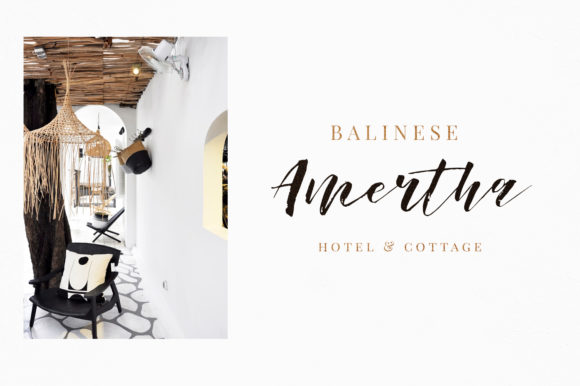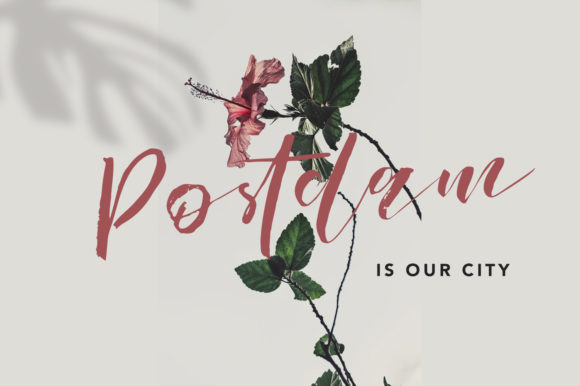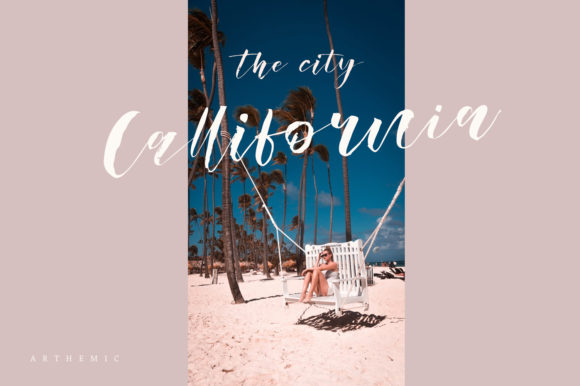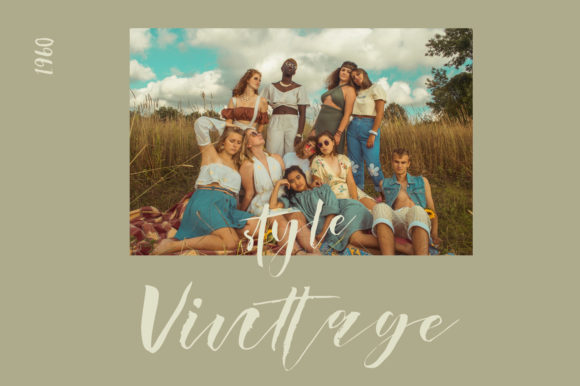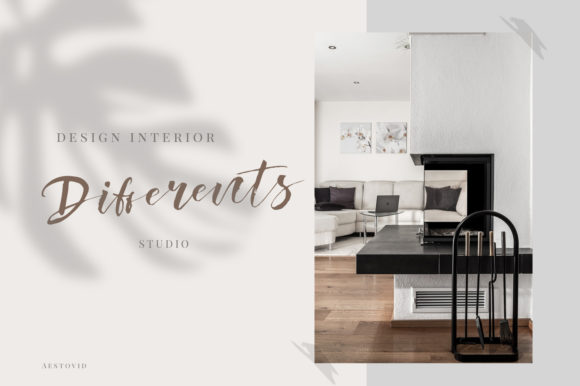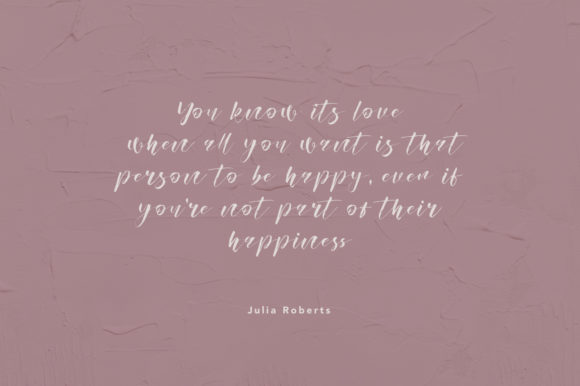
Aestovid Font
About Aestovid Font
Aestovid is both classy and contemporary, making it the perfect font for adding a touch of elegance to any design idea!